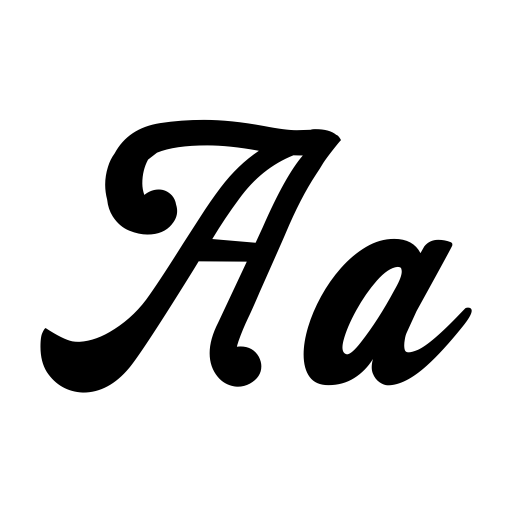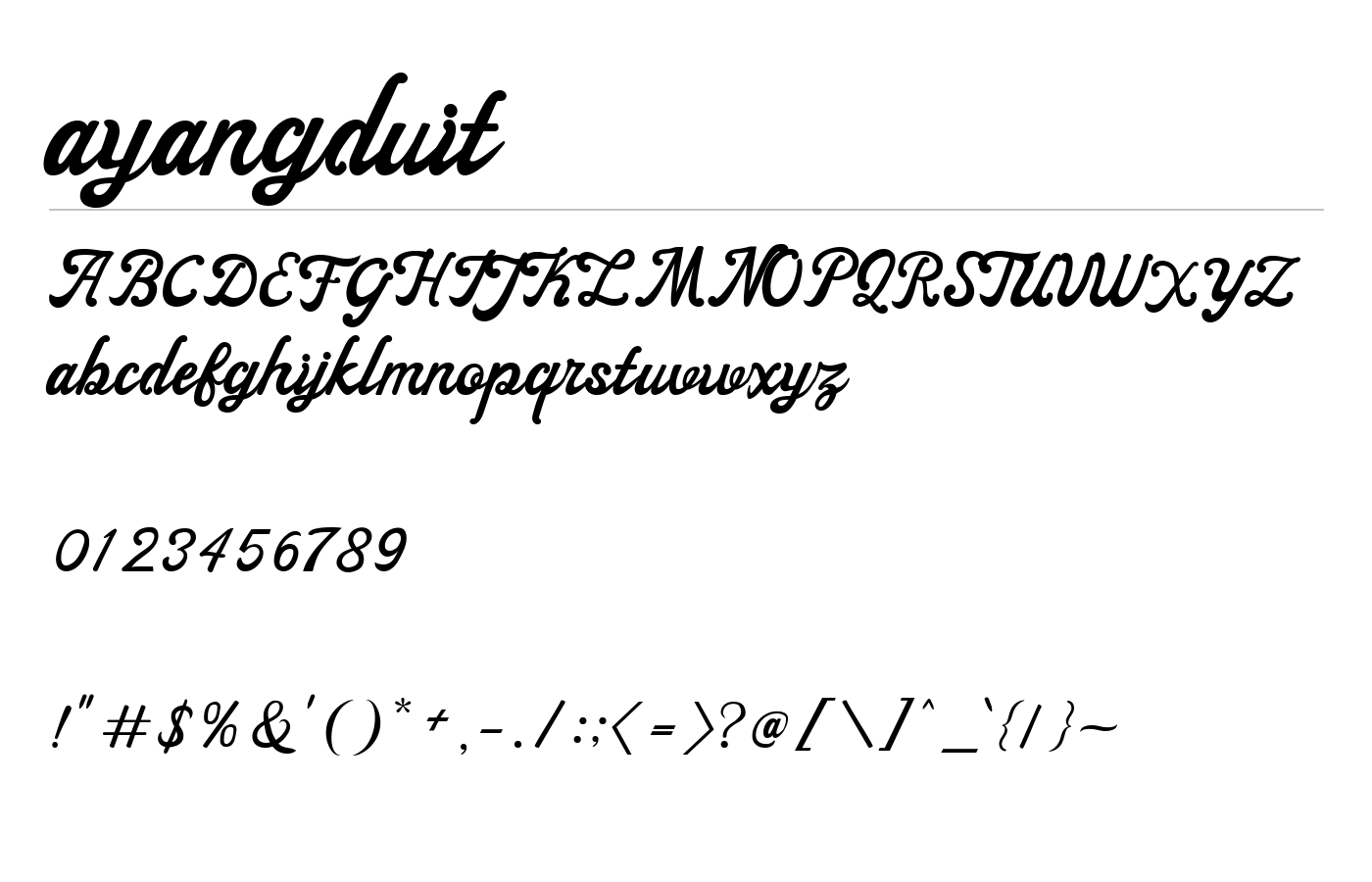
Ayangduit is a stylish script font featuring smooth, flowing strokes with a medium weight and a slightly condensed width. Its elegant cursive design, with distinctive rounded terminals and consistent stroke contrast, gives it a warm, inviting personality perfect for branding, invitations, and creative projects that seek a touch of charm and sophistication. This font works best in headings and logos, where its graceful curves can shine and add a friendly yet refined feel.
ayangduit Font